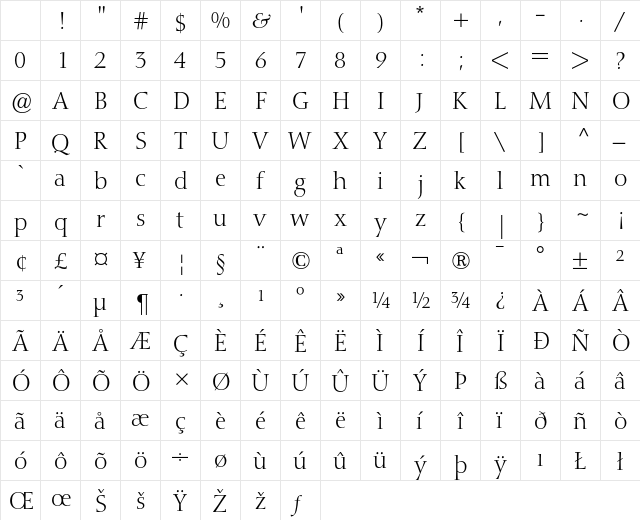
Nofret Light
Design Context for Nofret
Nofret is a composed and adaptable typeface that performs quietly and consistently across a wide range of design contexts. Its slender proportions lend an understated elegance to any composition.